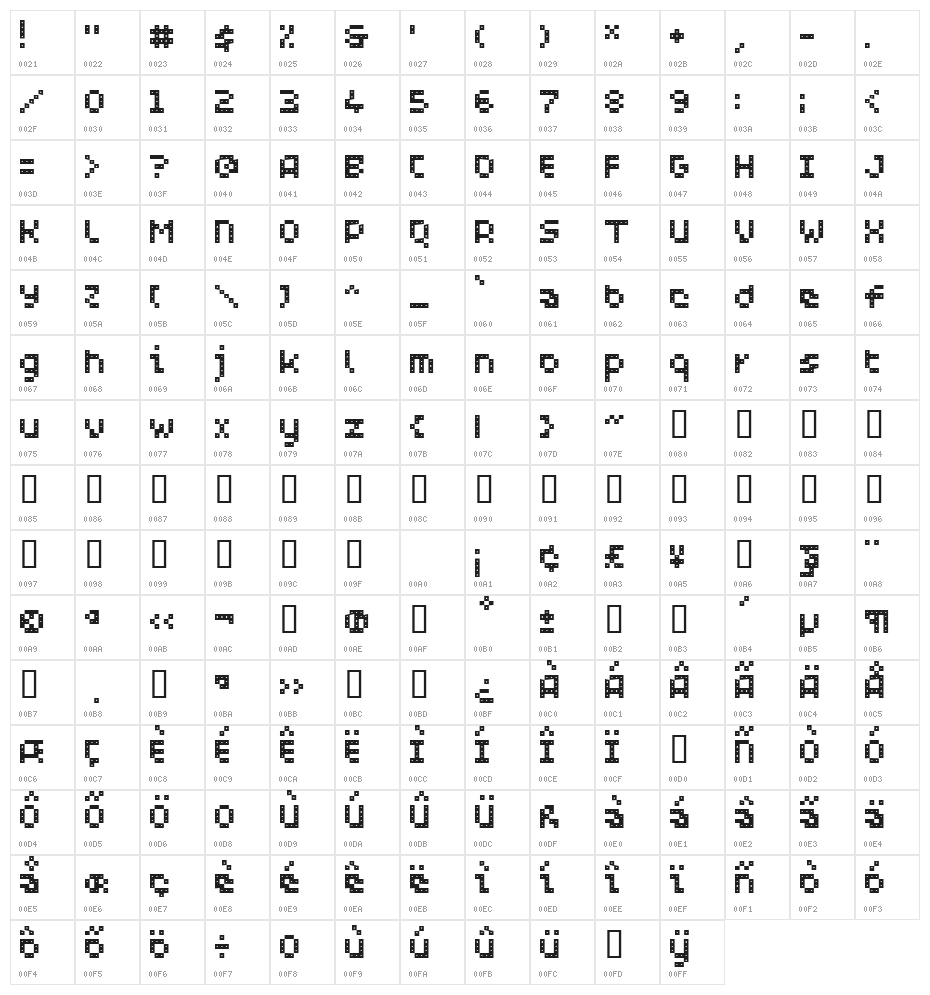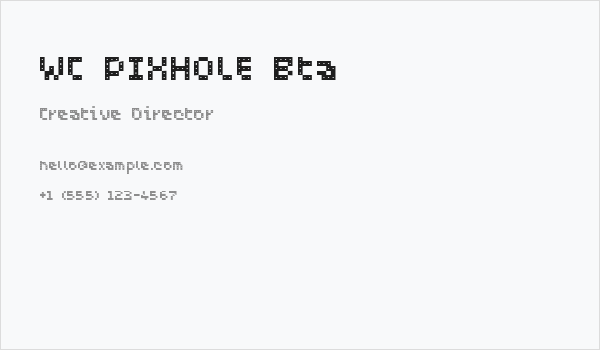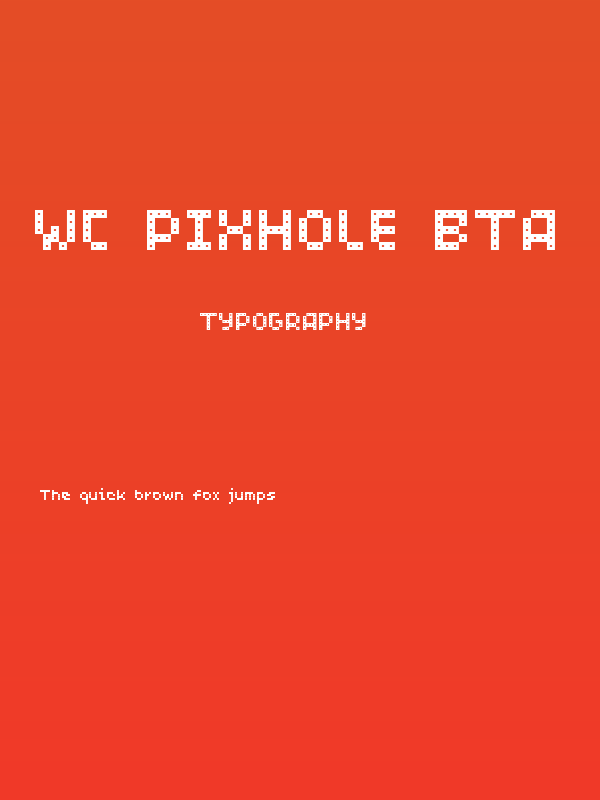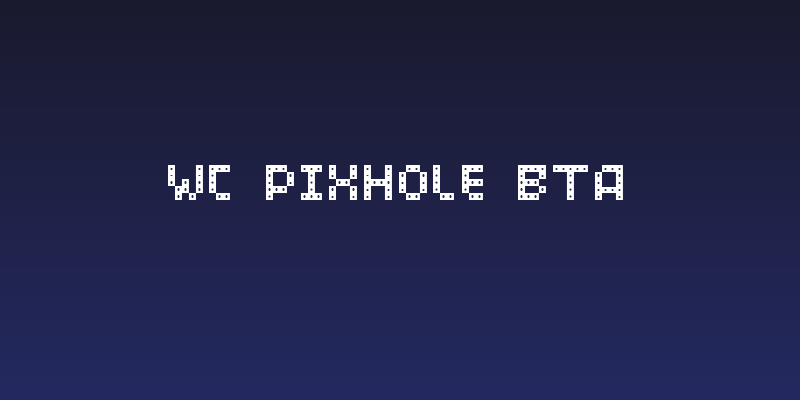
WC PIXHOLE Bta Font
WC PIXHOLE Bta Description
This font features a unique, pixelated design reminiscent of digital displays or retro video games. Each character is constructed from a grid of dots, creating a distinct, blocky appearance. The uniformity of the dots gives it a consistent texture, while the geometric shapes maintain legibility. The font's playful and nostalgic style makes it suitable for projects that aim to evoke a sense of fun or vintage digital aesthetics. Its bold, structured form ensures visibility and impact, making it ideal for headlines or display purposes.
| Overall Style | Retro, Digital |
| Use Case | Headlines, Logos, Display text |
| Proposed Projects | Ideal for video game design, retro-themed posters, digital art projects, and tech-related branding. |